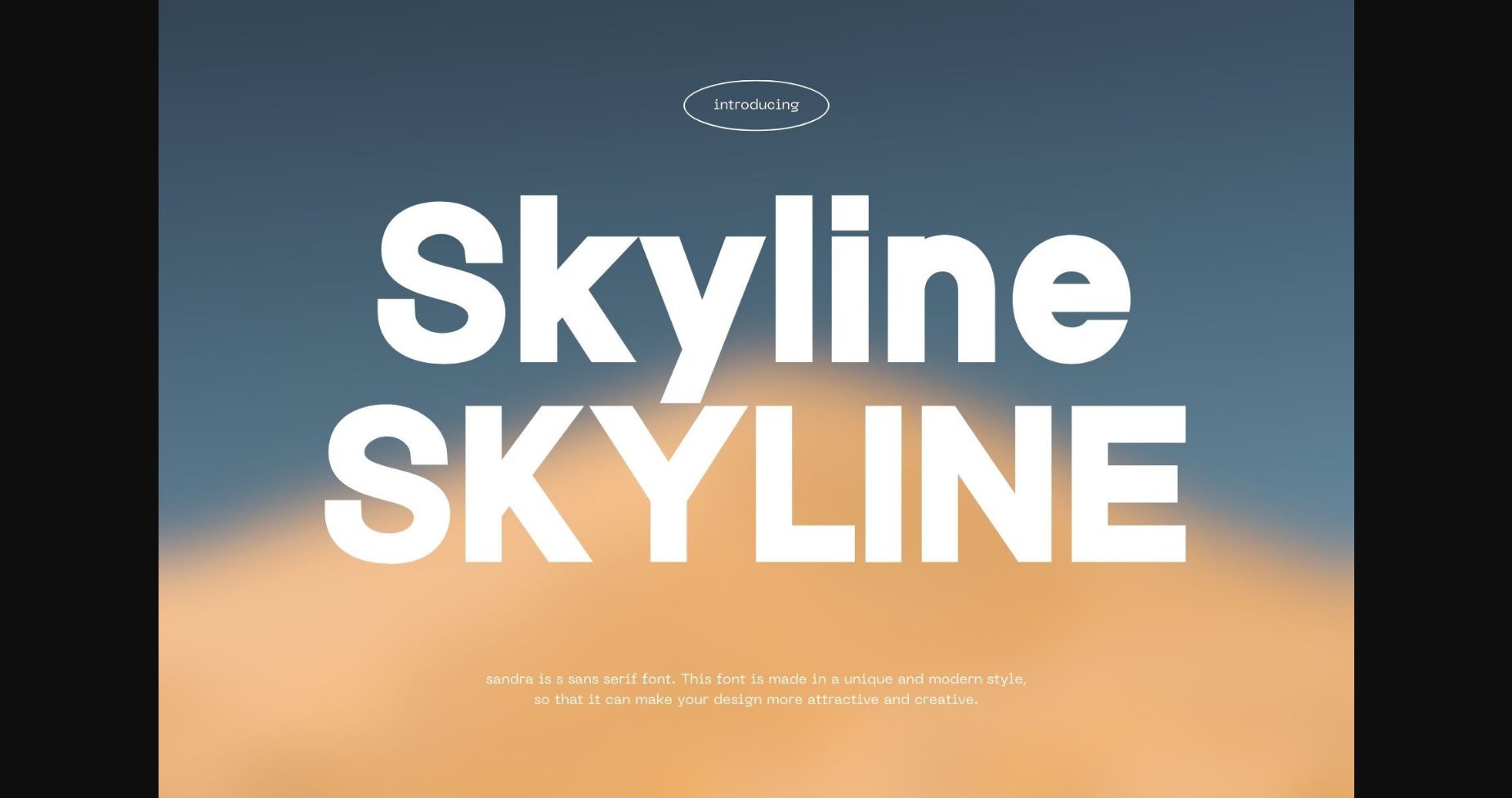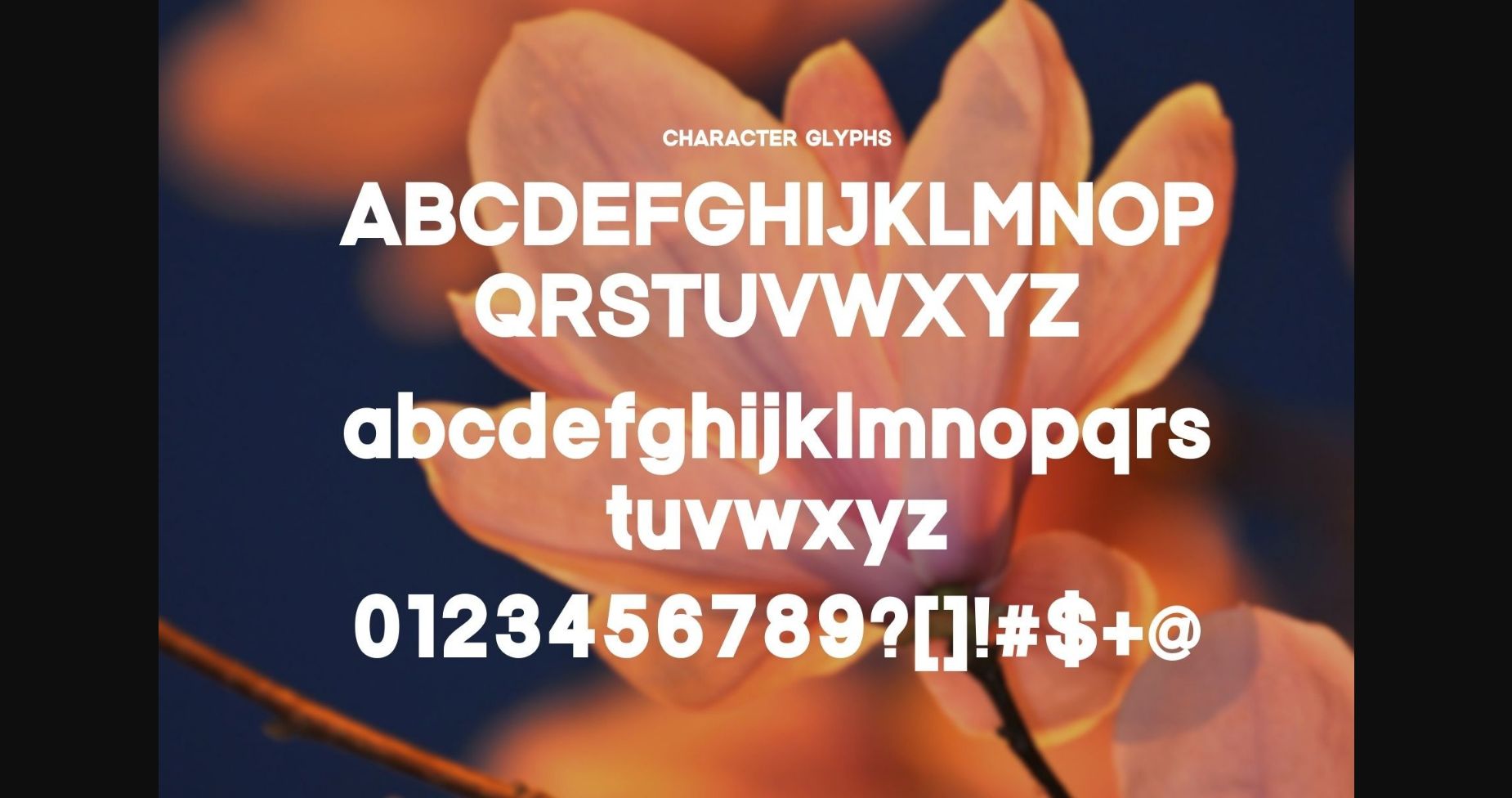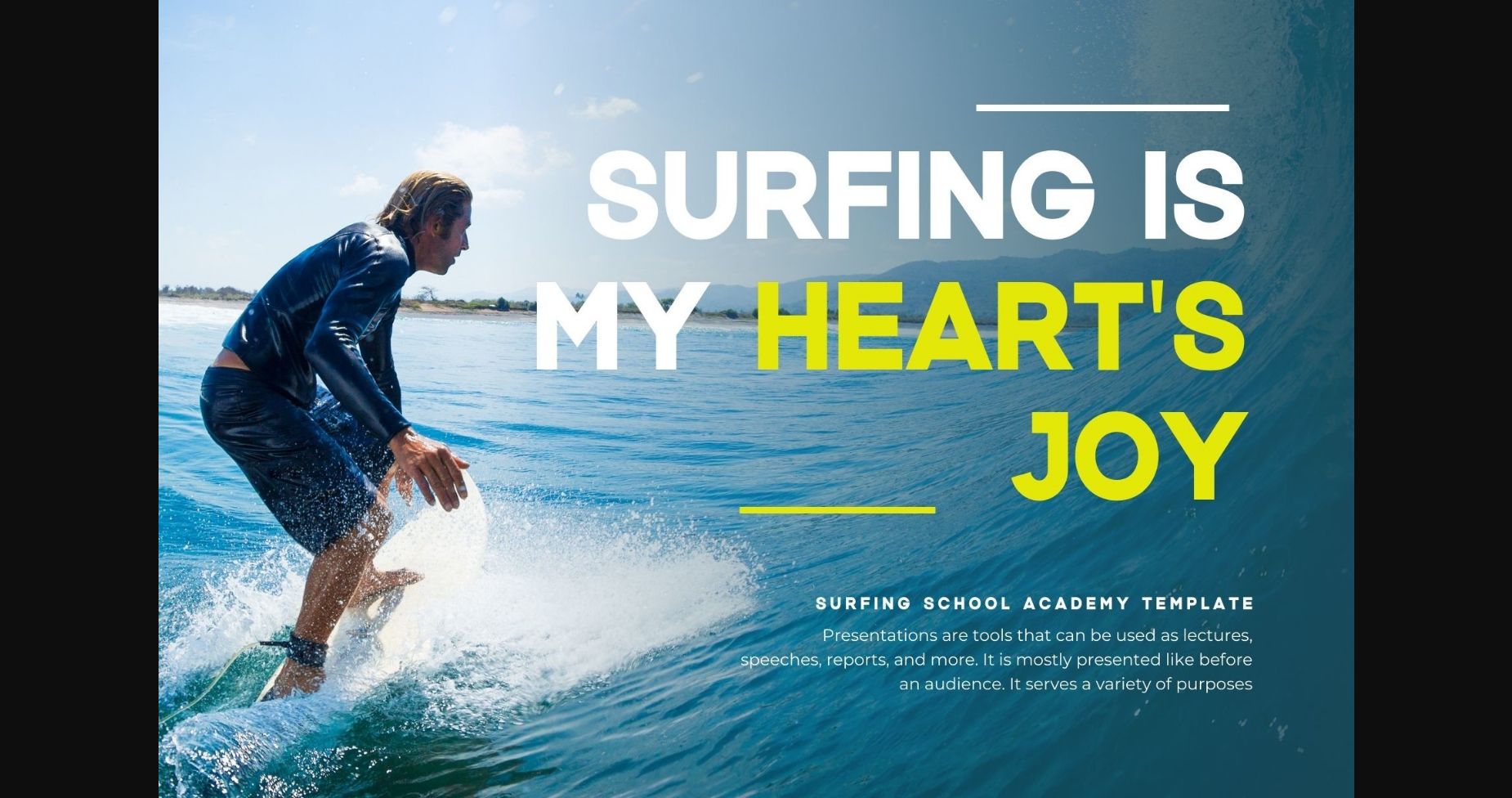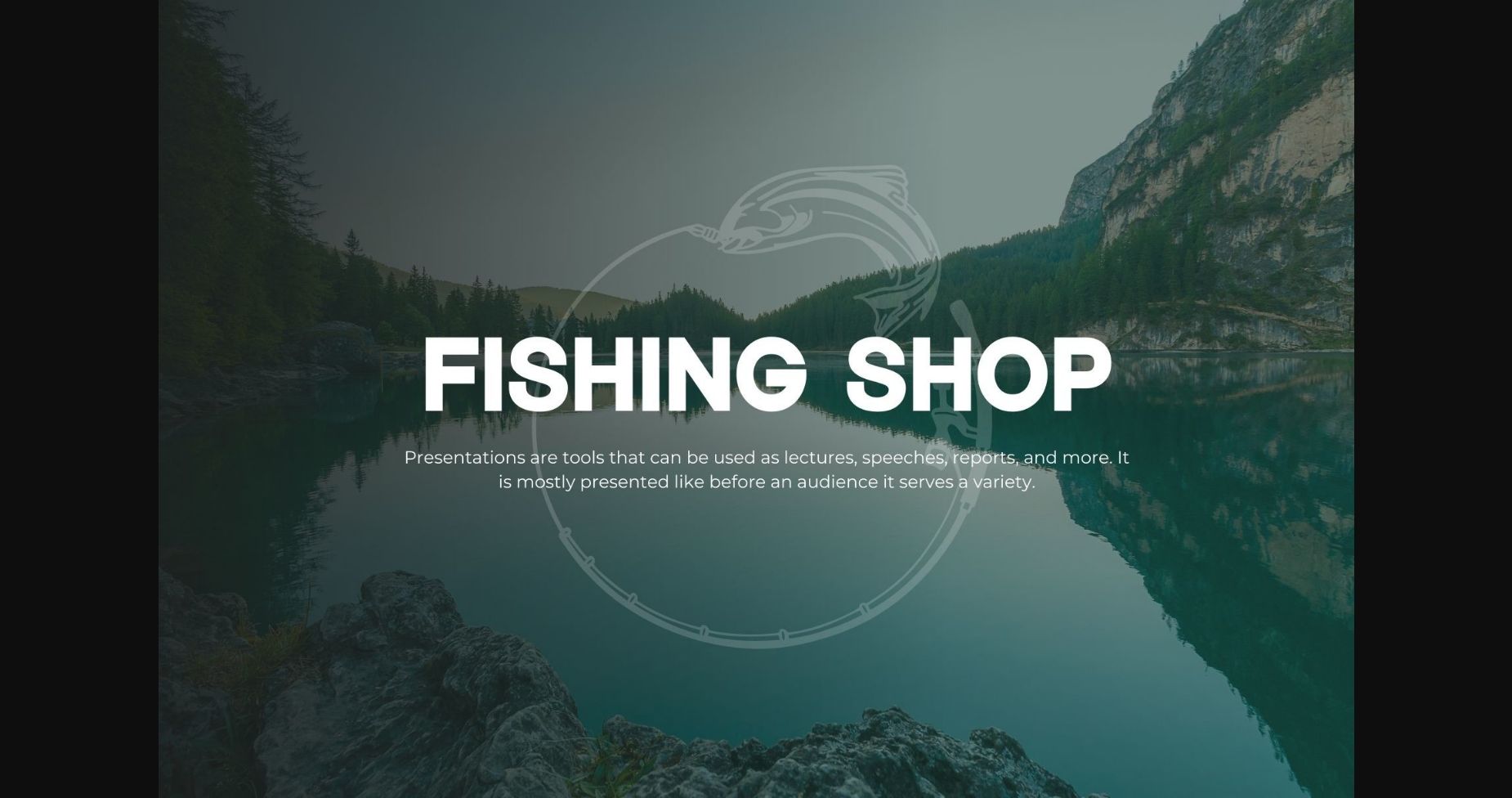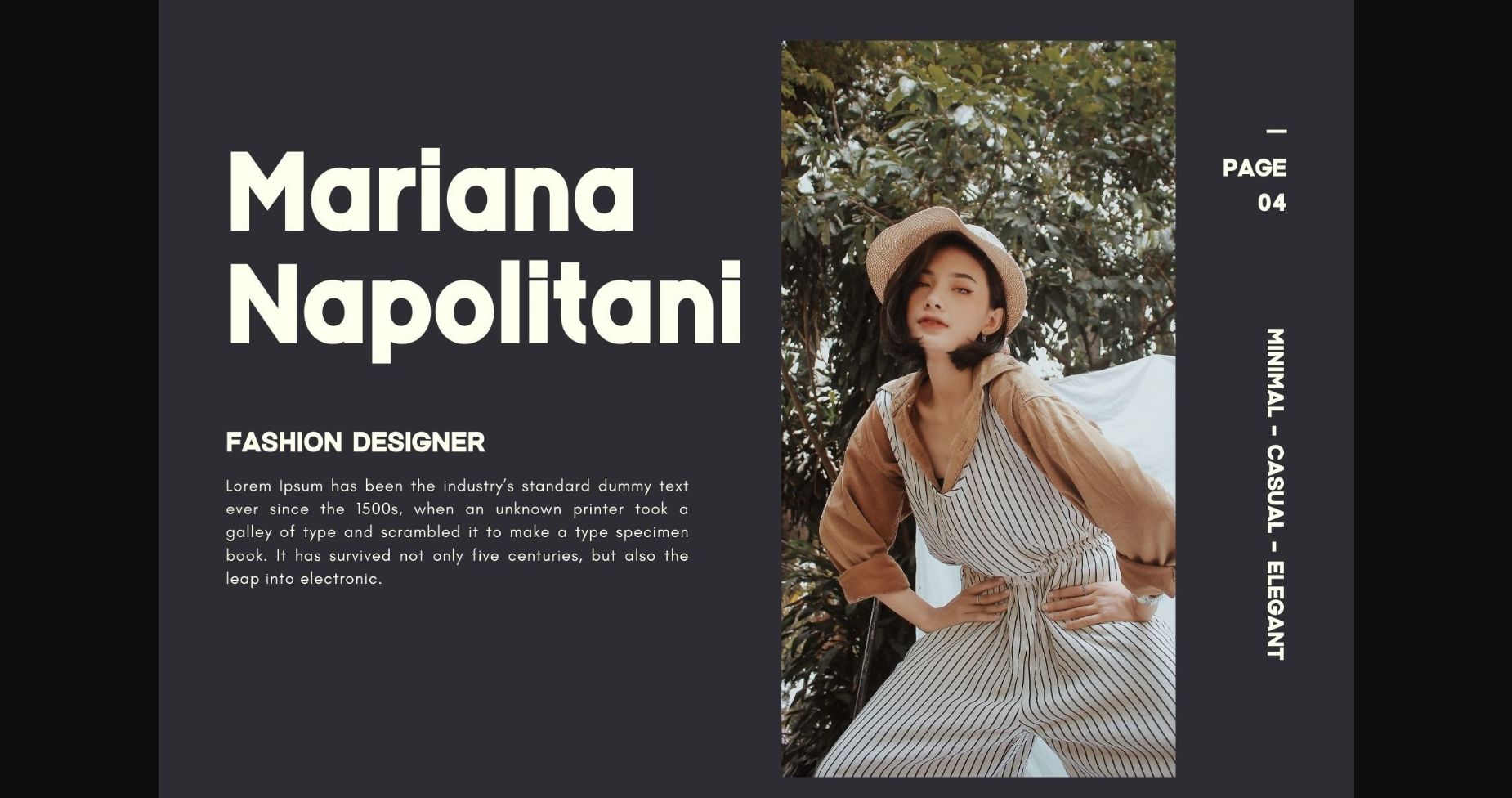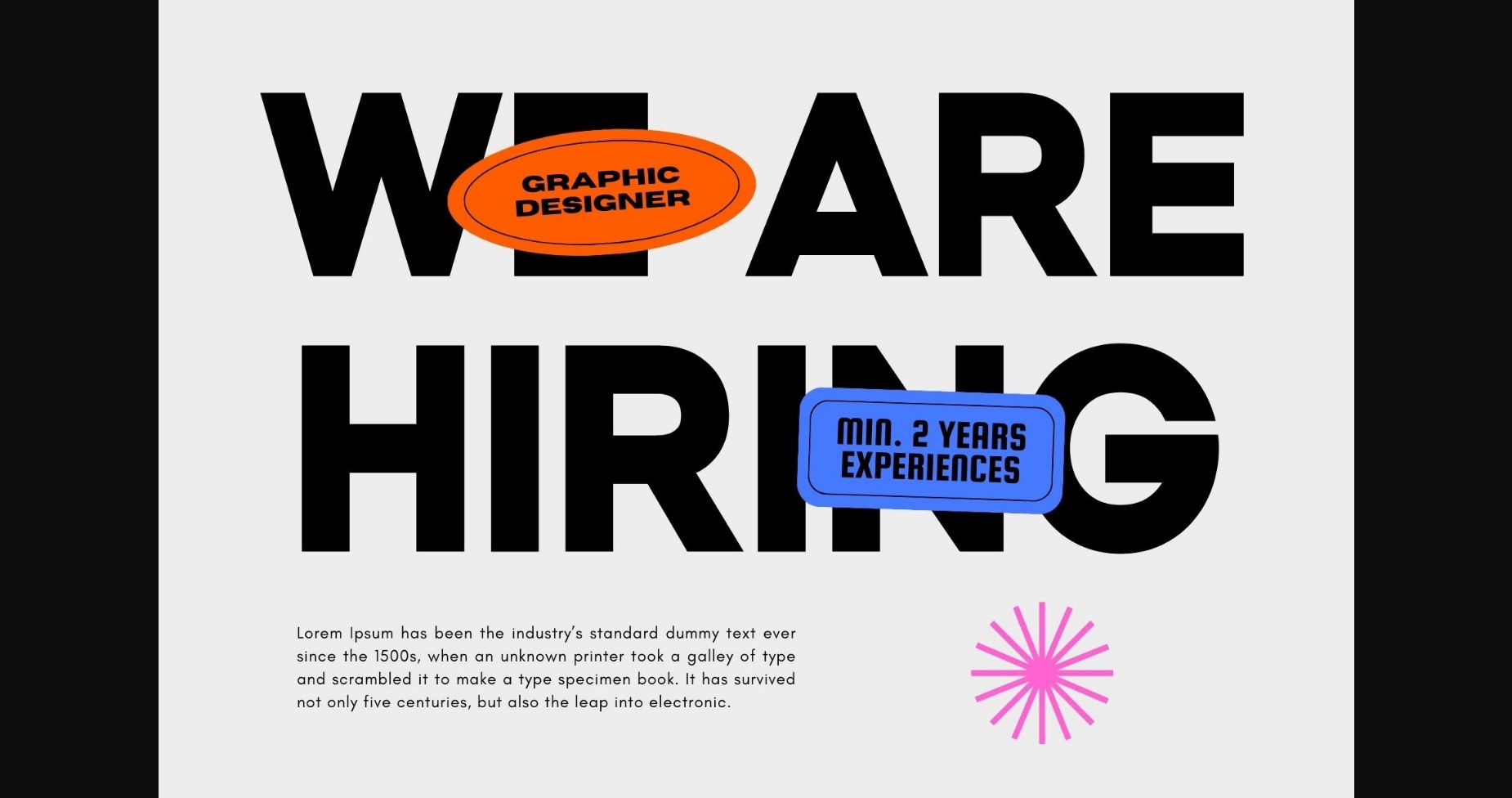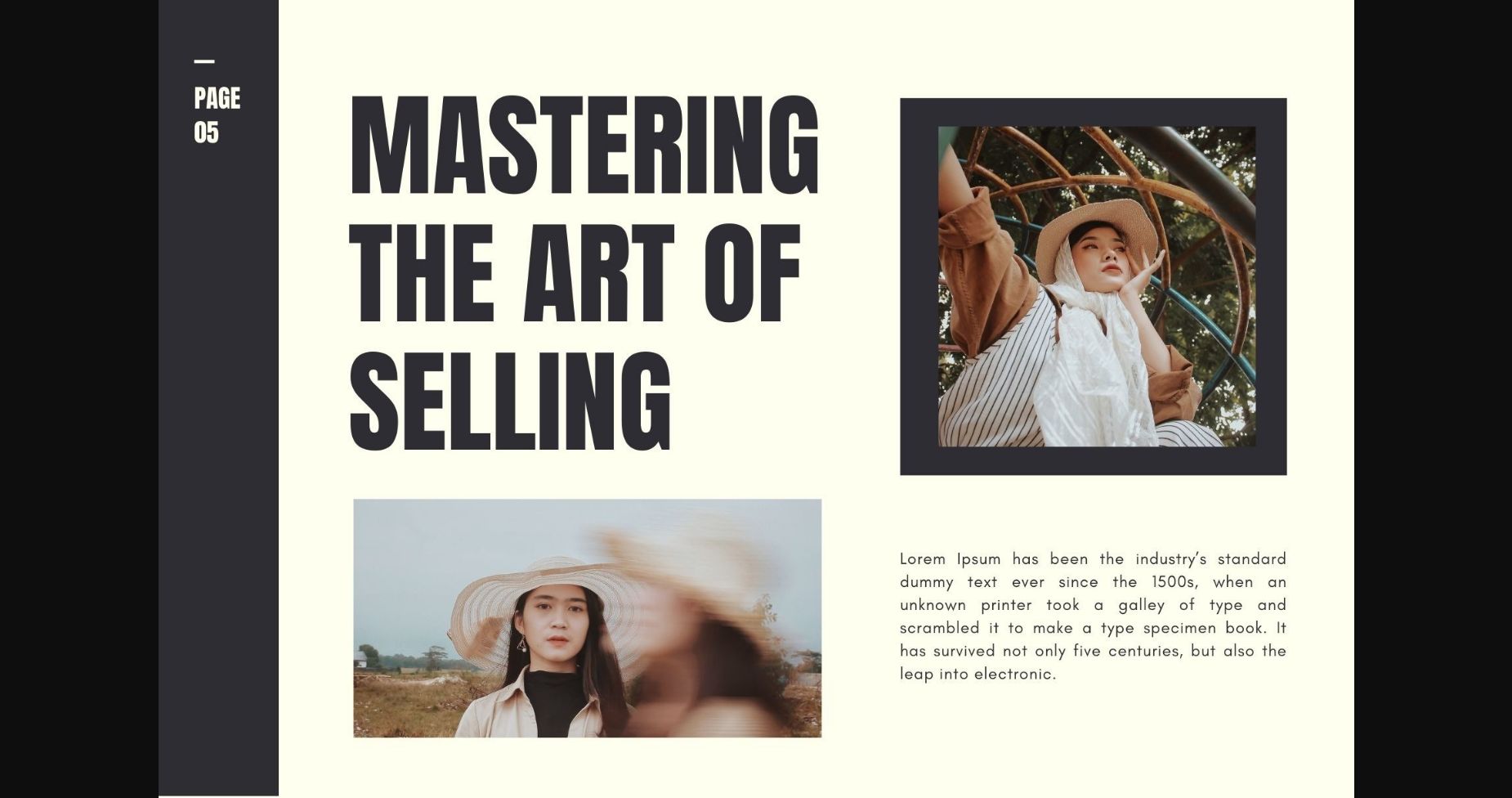
About Skyline Font
Skyline is a modern and neat sans serif font that combines simplicity and sophistication. With its clean lines and balanced letterforms, it exudes a sense of professionalism and elegance. Whether used for headings, body text, or branding, Skyline delivers a sleek and contemporary look. Its versatility makes it suitable for a wide range of design projects, adding a touch of refinement to any composition.